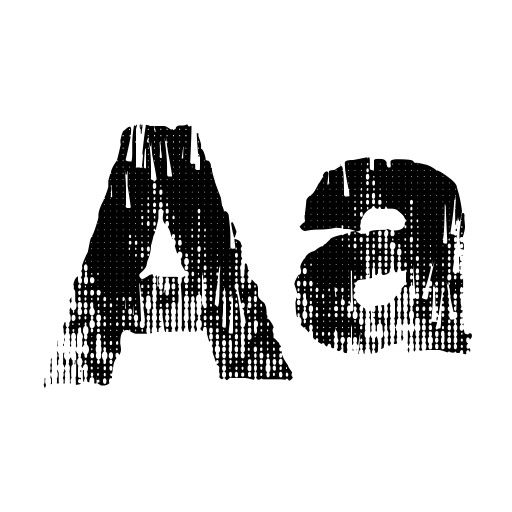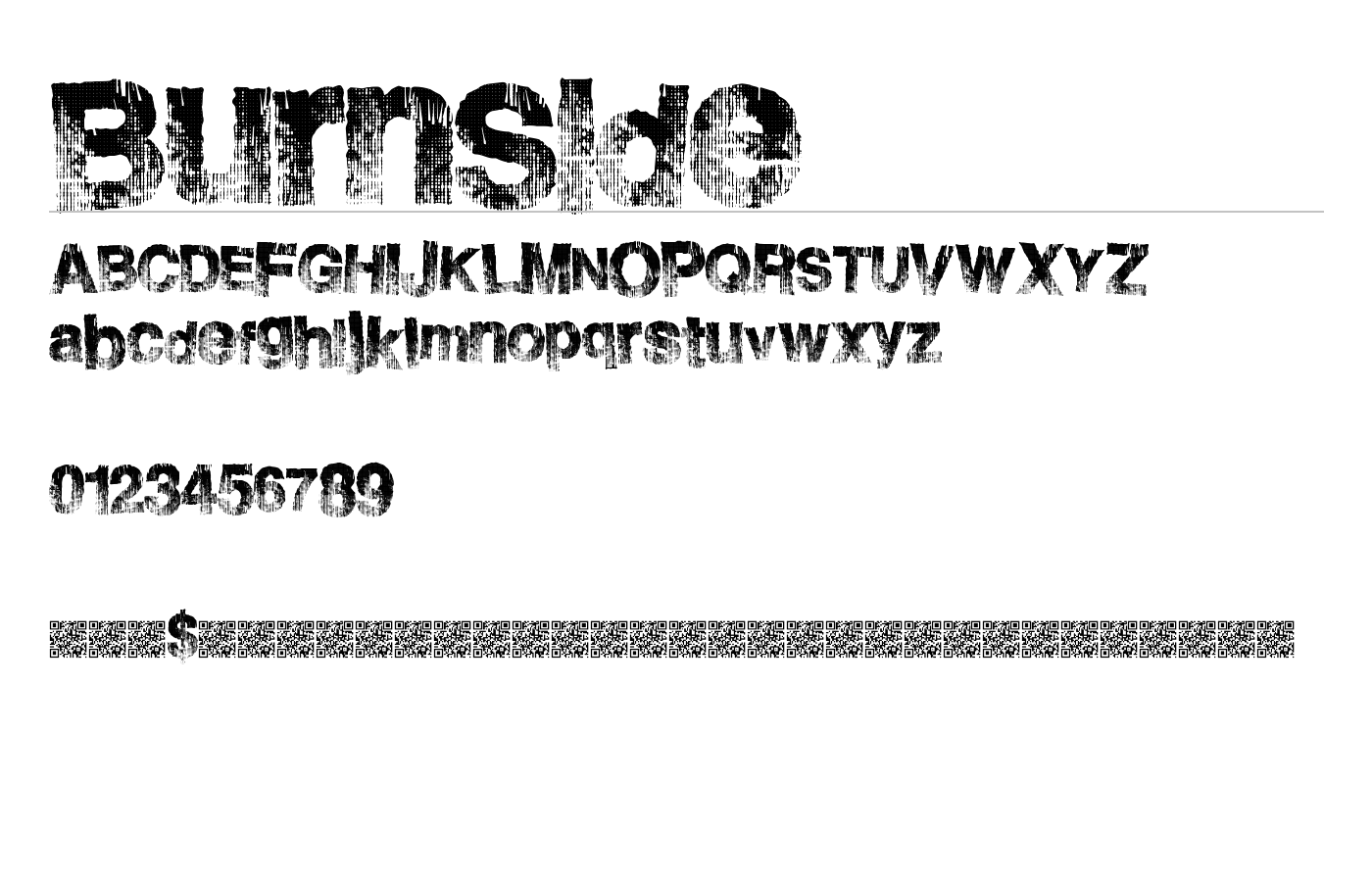
BurnSide is a bold, distressed sans serif font with a gritty, textured appearance that gives it a strong industrial and urban vibe. Its rough edges and irregular pattern evoke a sense of ruggedness and raw energy, making it ideal for designs that want to convey toughness, rebellion, or vintage street style. This font works best in logos, posters, and headlines where a striking and unconventional look is desired.
BurnSide Font
About BurnSide Font